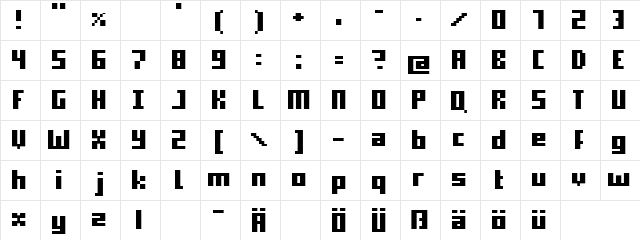
supernova fat Free Font
supernova fat
Style: fat
Design Context for supernova
supernova is a composed and adaptable typeface that performs quietly and consistently across a wide range of design contexts.